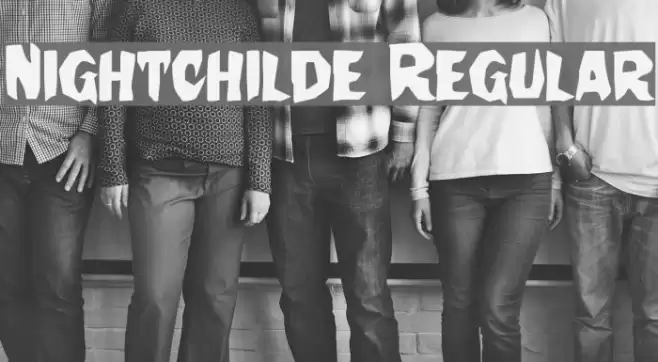
Nightchilde Regular Font
Nightchilde Regular Description
This font features a bold and jagged design, reminiscent of hand-carved letters. The characters have an irregular, edgy appearance, giving them a dynamic and energetic feel. The uppercase and lowercase letters maintain a consistent style, with sharp angles and varying stroke widths that create a sense of movement. The numbers and special characters follow the same aesthetic, ensuring a cohesive look across all glyphs. This font is ideal for projects that require a bold, eye-catching typeface with a touch of rebellious flair.
A bold, jagged font with an edgy, dynamic style from Uncategorized fonts.
- Proposed Projects: Perfect for horror-themed designs, rock band logos, Halloween invitations, or any project needing a bold, striking typeface.
- Use Case: Logos, Posters, Headlines